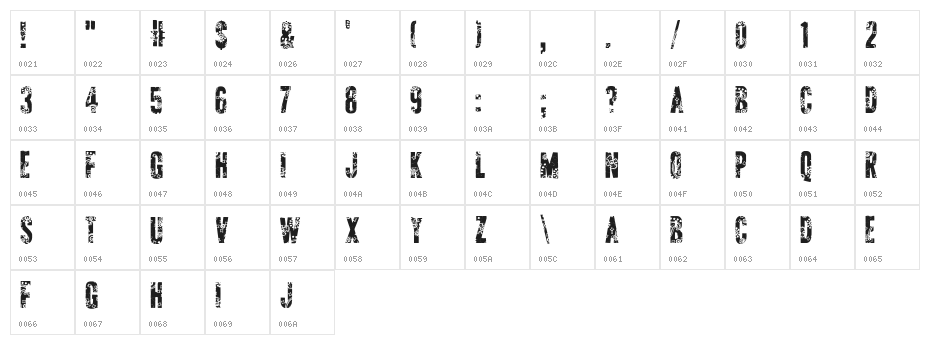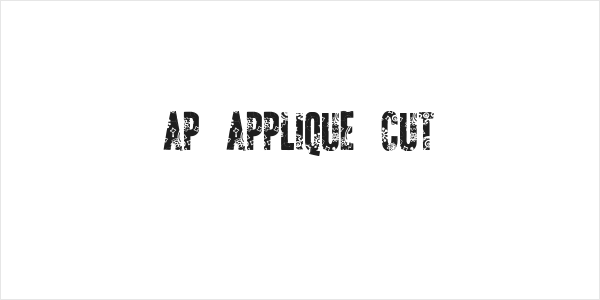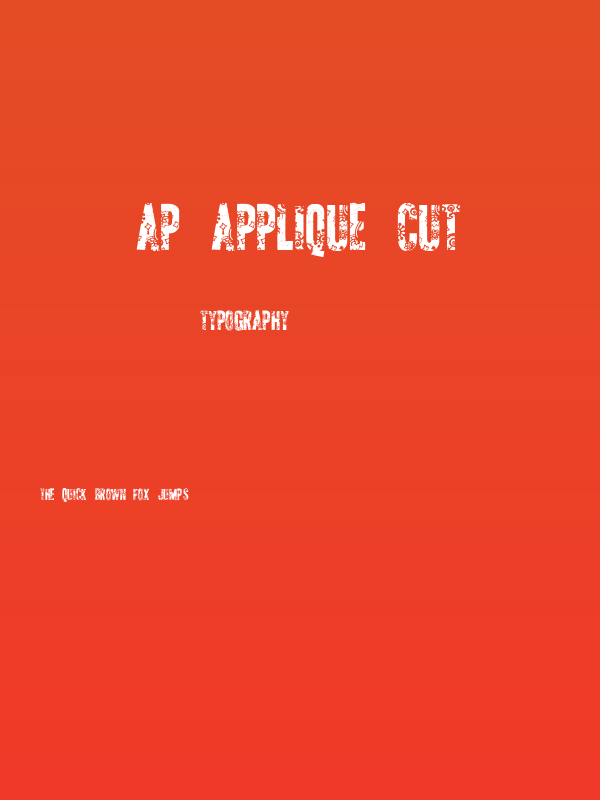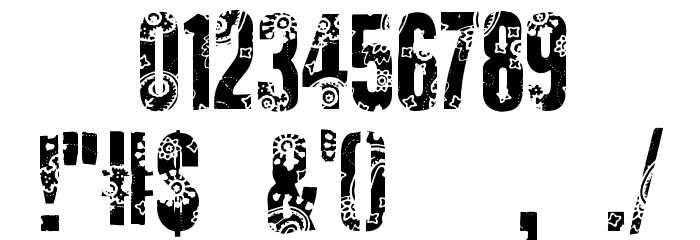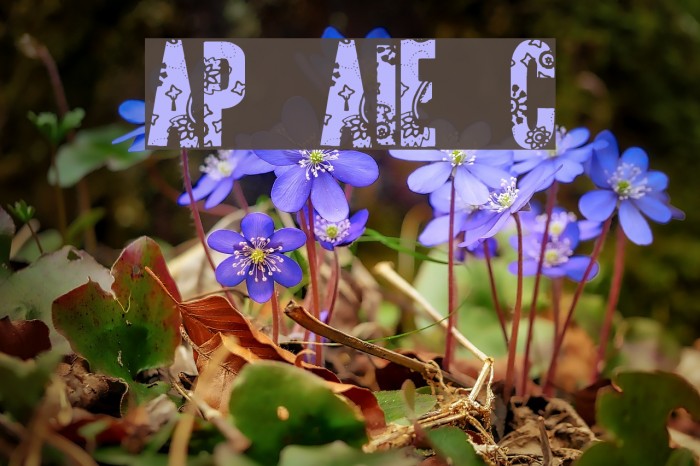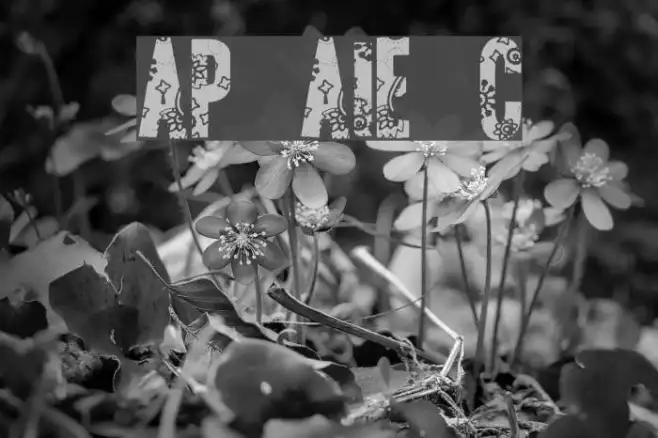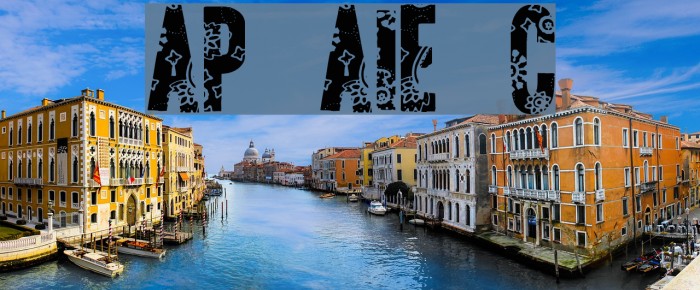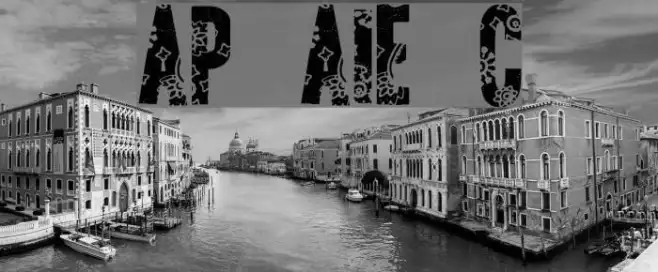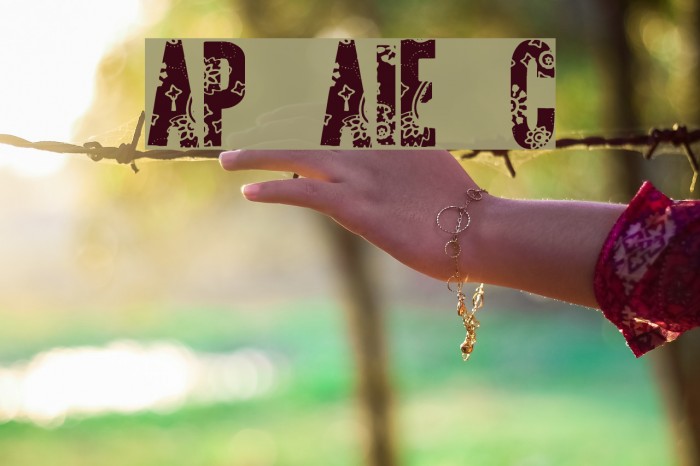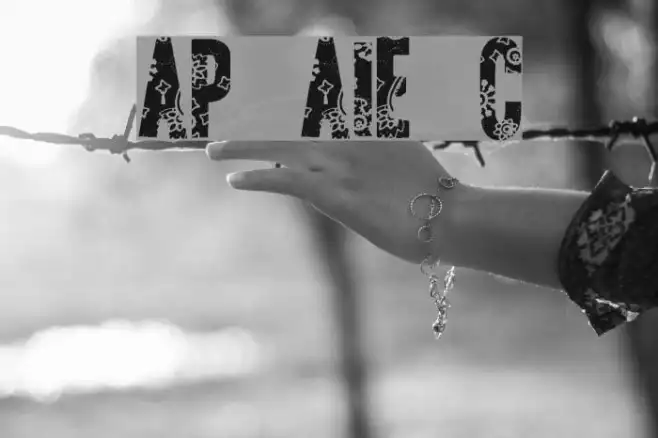
AP Applique Cut Font
AP Applique Cut Description
This font features a bold and decorative style with intricate patterns embedded within each character. The design incorporates floral and paisley-like elements, creating a textured and ornate appearance. The uppercase and lowercase letters, as well as numbers and special characters, maintain a consistent decorative theme. The font's boldness and unique detailing make it stand out, suitable for eye-catching designs. The characters are well-defined, with a balance between the decorative elements and the overall readability.
| Proposed Projects | Ideal for projects that require a standout decorative touch, such as event invitations, posters, branding materials, and artistic designs. |